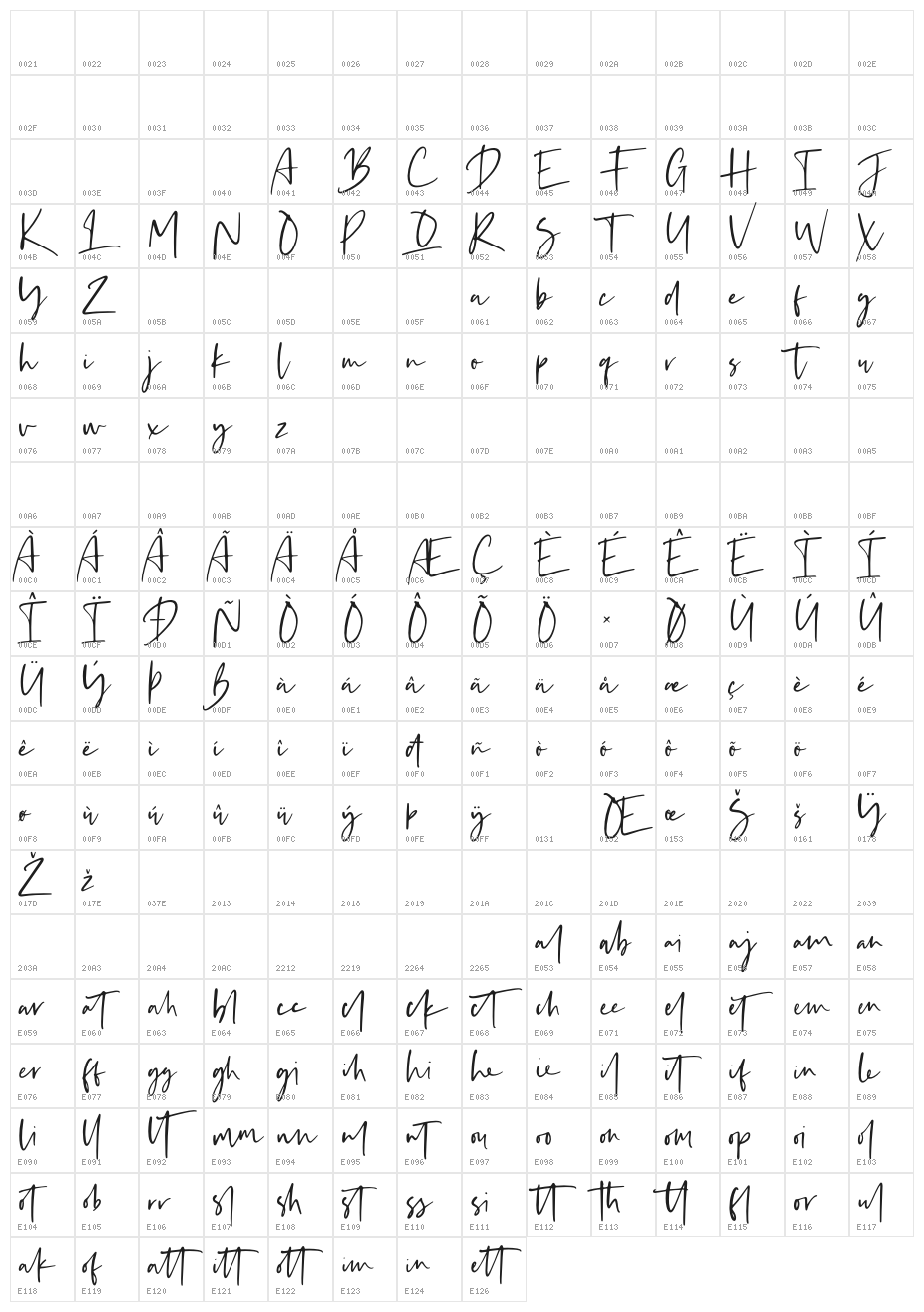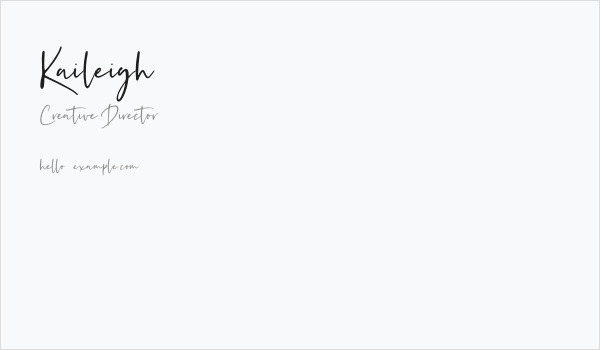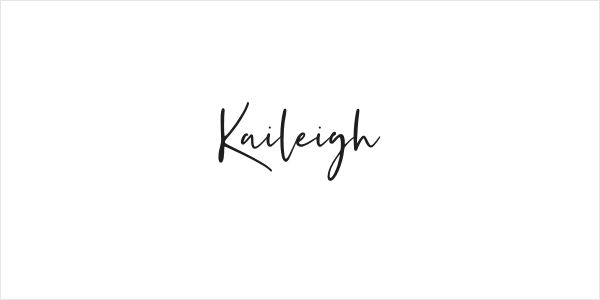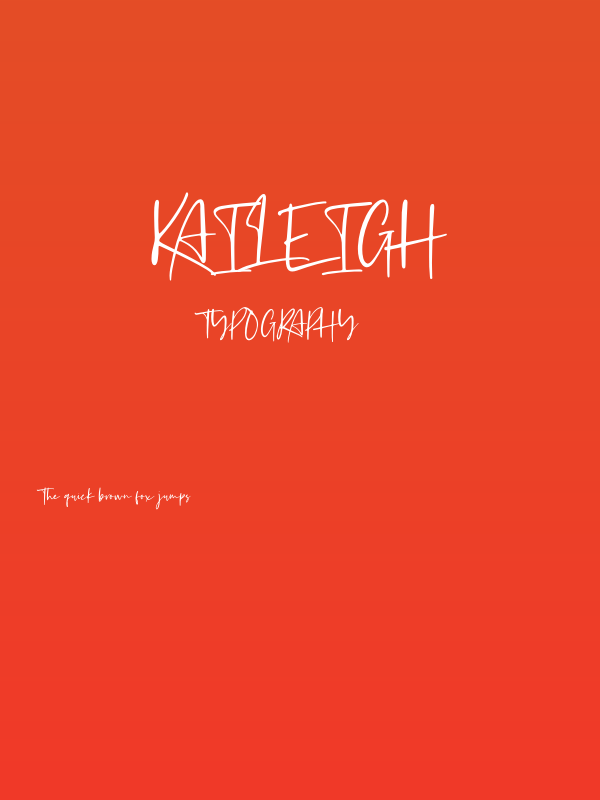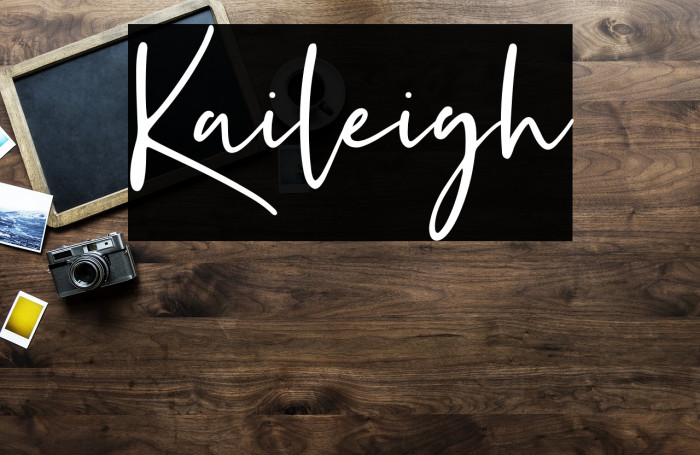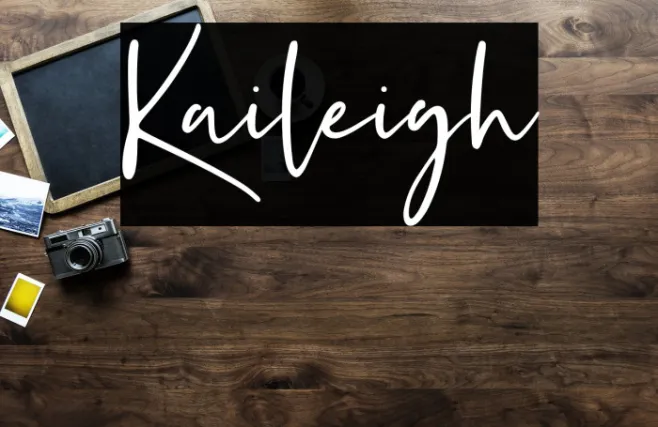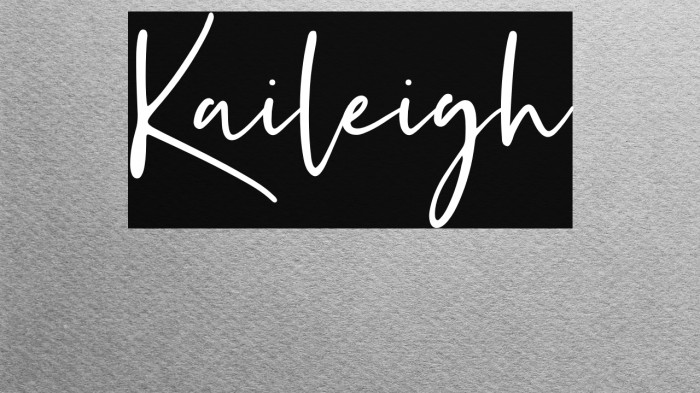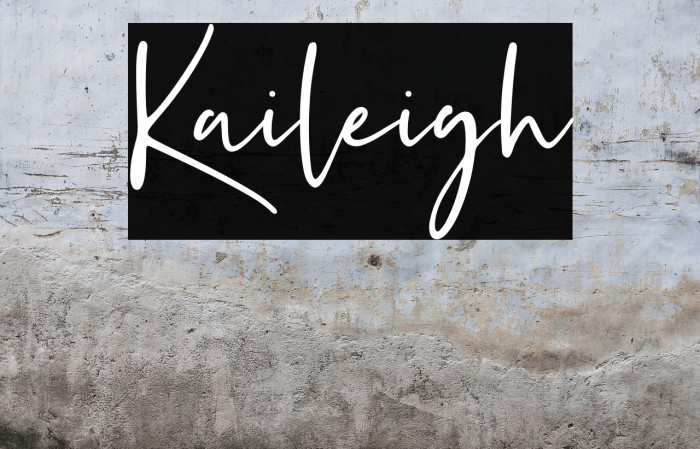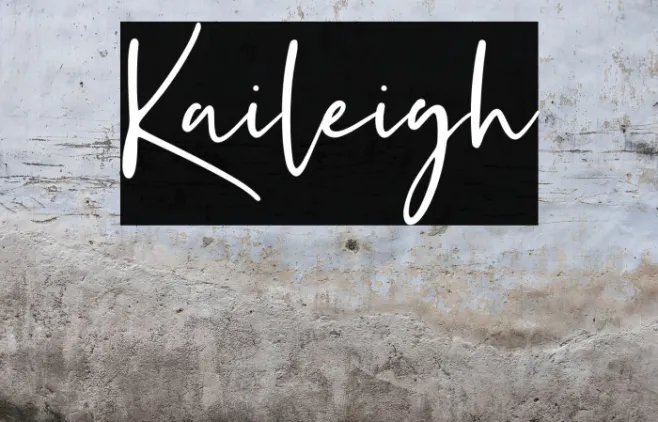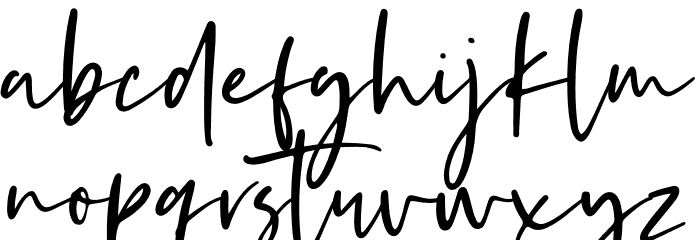
Kaileigh Font
Kaileigh Description
This font features a dynamic and expressive handwritten style, characterized by its fluid and irregular strokes. The uppercase letters exhibit a playful and energetic flair, with varying heights and angles that create a sense of movement. The lowercase letters maintain a cohesive flow, with some letters connecting seamlessly, enhancing the handwritten aesthetic. The numbers and special characters are crafted with the same lively spirit, ensuring consistency across the character set. This font exudes a personal and informal vibe, making it ideal for projects that require a touch of creativity and individuality.
| Proposed Projects | Ideal for greeting cards, personal branding, social media graphics, and creative invitations. |